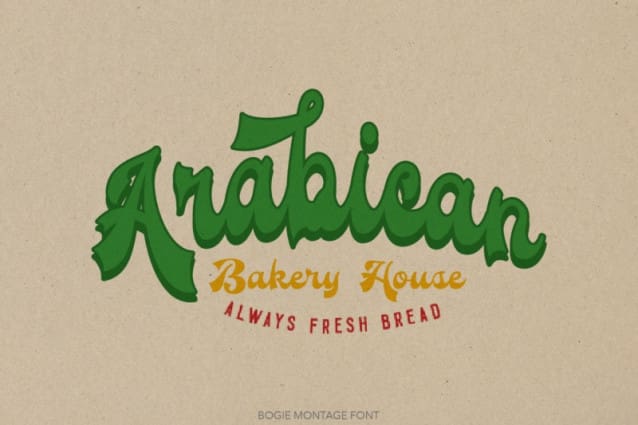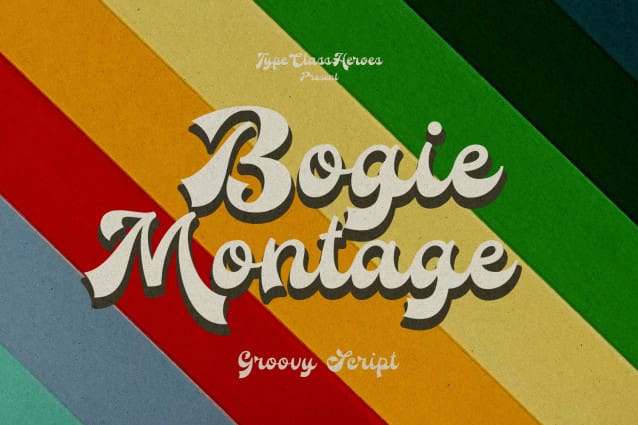
Bogie Montage Font
Bogie Montage Font is a groovy script come with 60’s style. Groovy and refined you can explore and combine creating rhythm for comfortable reading. This font perfect for any projects, such logotype, stickers, greeting / wedding cards, packaging design, headlines, brand identity, t-shirt, posters, magazines, books, Instagram, websites, and many more.